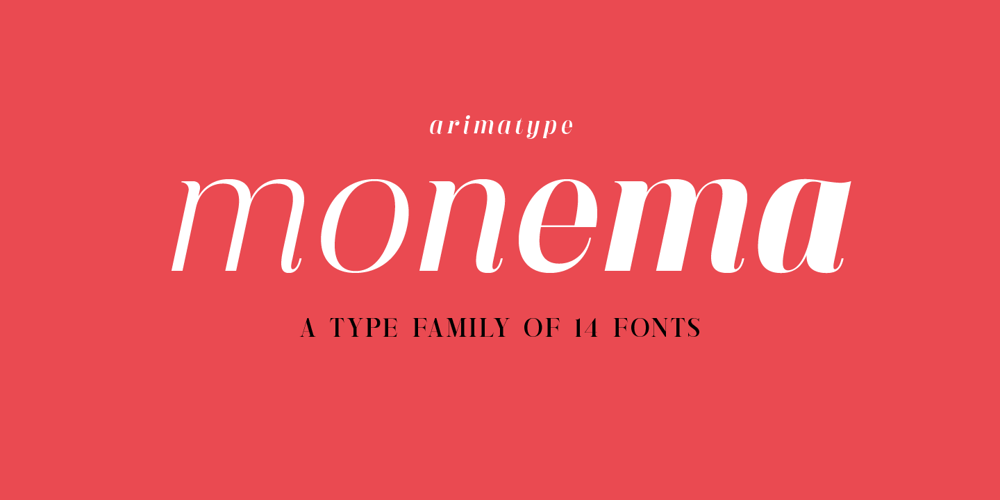
Monema Font Family was designed by Amri Mauludin and published by ArimaType. Monema contains 14 styles and family package options. Monema is a modern serif font with a unique, high-contrast binding style.The letterform morphology makes this typeface ideal for display purposes such as large bold logos and titles. Also, thanks to its large x-height, it works flawlessly in headlines with tight prefixes. On the other hand, its high contrast and very simple and easily recognizable form makes it very easy to read, so it also works with small and long text.